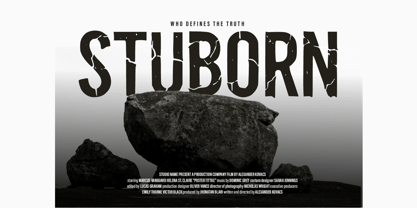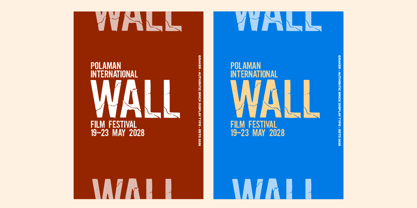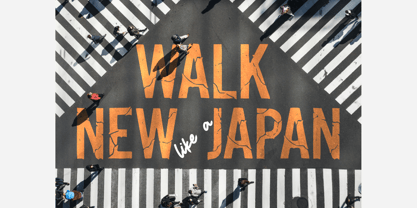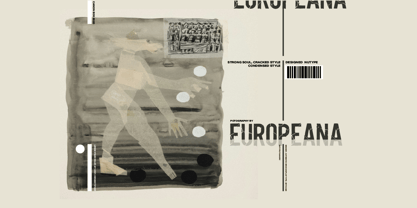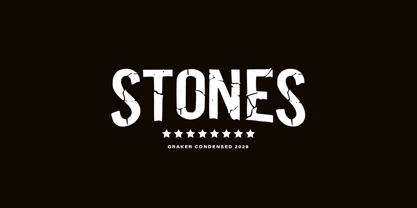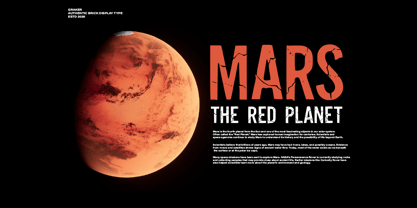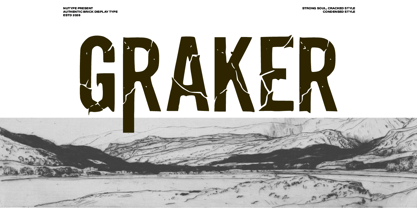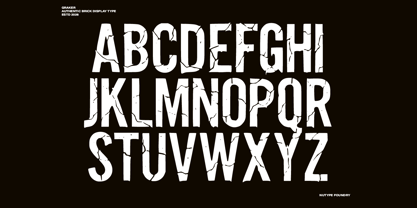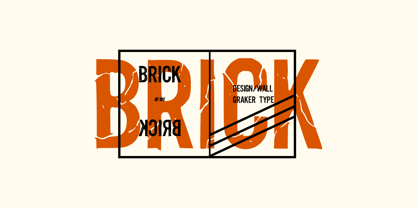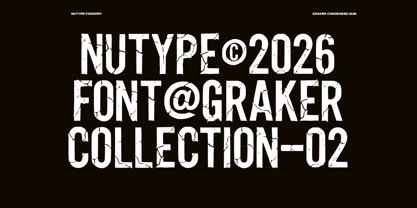
Graker
The Graker Font Family was designed by ryan creative and published by ryan creative. Graker contains 1 styles. More about this family
Graker is a bold display typeface inspired by cracked brick textures and rugged industrial aesthetics. Designed with strong uppercase characters and natural fracture details, this font delivers a powerful, raw, and masculine visual impact. Each letter features authentic crack effects that create a realistic broken-stone appearance while maintaining excellent readability. Perfect for projects that require a strong, tough, and dramatic typographic presence. Features: All Caps Character Set (A–Z) Numbers & Punctuation Authentic Crack Texture Detail Strong & Bold Letterforms High Readability for Display Use PUA Encoded Perfect For: Movie Posters Horror & Thriller Designs Gaming Titles Streetwear Branding Sports Graphics YouTube Thumbnails Album Covers Logo & Headline Design Graker is the perfect choice when you need typography that feels solid, broken, and powerfully expressive